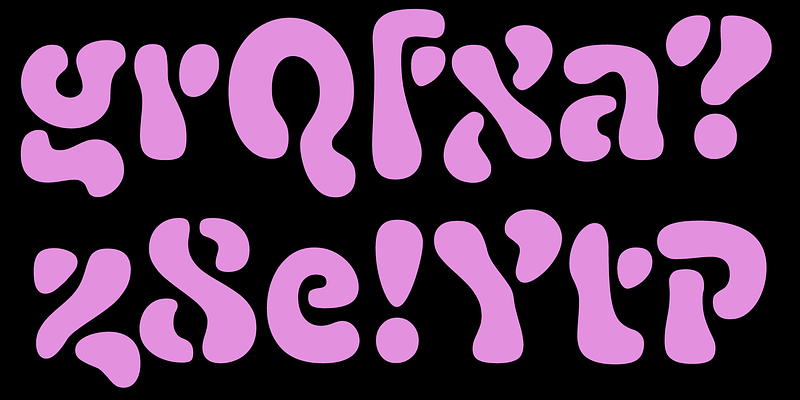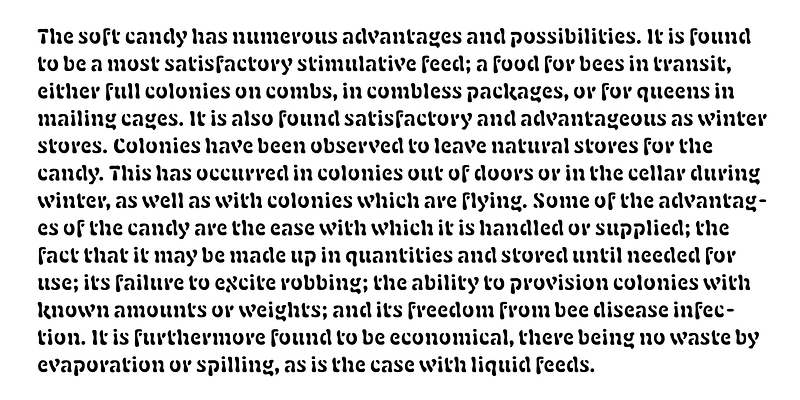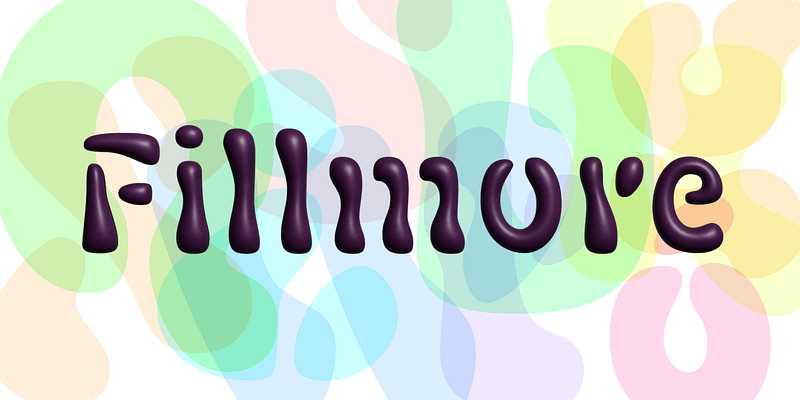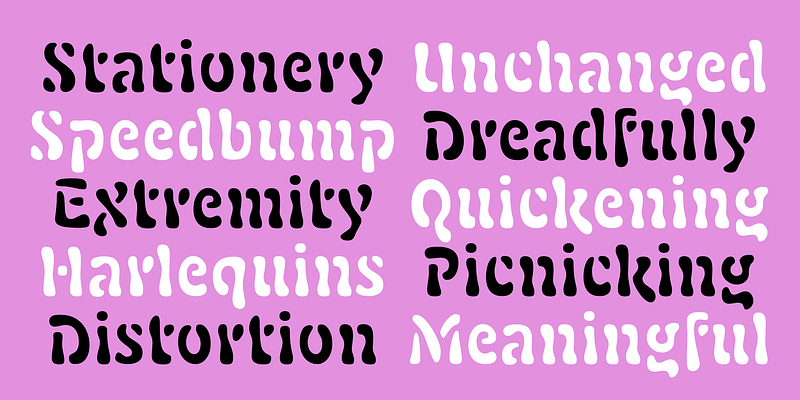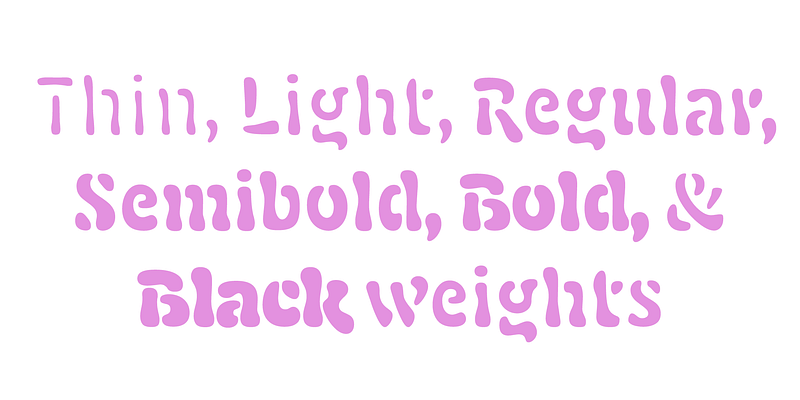
Fillmore was inspired by French Art Nouveau style of the late 1800s, Surrealist art of the early twentieth century, and psychedelic design of the 1960s. Its letters are made up of disjointed and blobby forms, finding inspiration in the brushed letters of poster artists in the Moulin Rouge era and the abstract art of Jean Arp, Joan Miró, and Isamu Noguchi. But these biomorphic forms, with no straight lines in sight, also look they could be bubbling up in a Lava Lamp. Fillmore is evocative of these past eras, yet fresh and inventive.